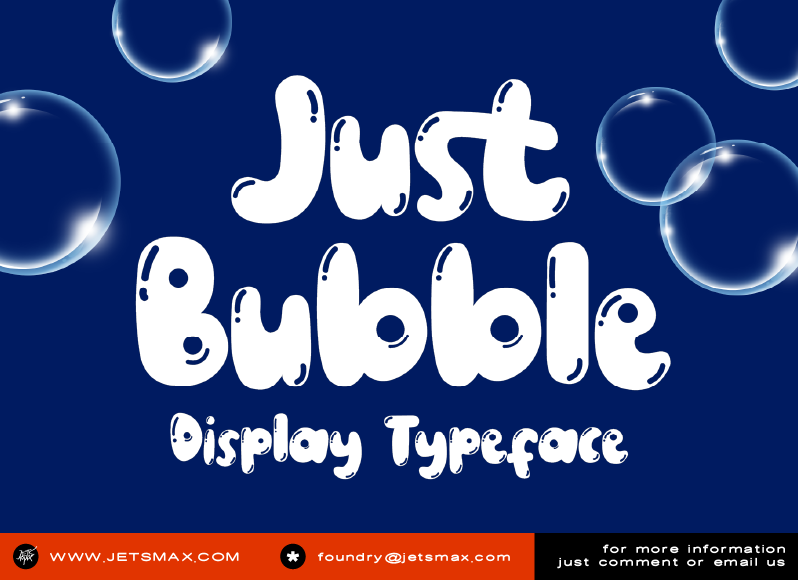
Just Bubble is a cute display font that resembles the shape of balloons. This font will add an incredibly playful touch to any of your crafting. Just Bubble Font is perfect for branding, logo, logotype, poster, invitations, cards, advertisements, and many more. Make your design stand out with Just Bubble! Note: By installing or using this font, you are agree to the Product Usage Agreement: � This is demo version (TTF file) and ONLY for PERSONAL USE. NO COMMERCIAL USE ALLOWED! � Here is the link to purchase commercial license : https://jetsmax.com/just-bubble/ � For Corporate use you have to purchase Corporate license � If you need a custom license please contact us at : foundry@jetsmax.com � Any donation are very appreciated. Paypal account for donation : https://paypal.me/KhairilAnwar Happy Creation! ----------------------------------------------- FOR SOME FREEBIES CHECK OUT >>> www.jetsmax.com ----------------------------------------------- |